10. Knubi font, a typeface by Matt Vergotis.
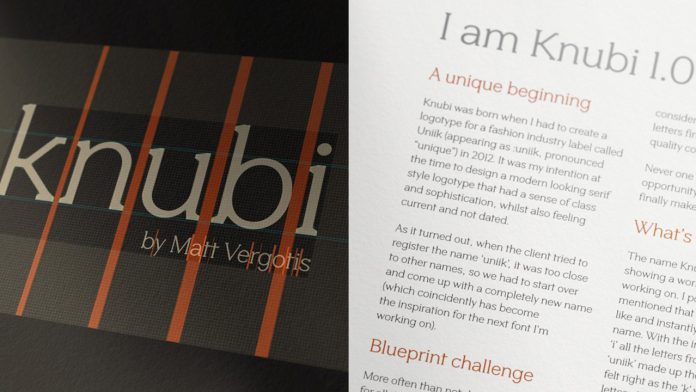
Being Matt Vergotis’ first released font, Knubi is a masterfully designed typeface based on elegant serifs combined with clear geometric shapes. Consisting of 380 glyphs that support 80 languages, the family is a great choice for editorial work. Please note, Knubi is available for free for personal use.
9. Buffalo, a playful script among our selection of the best free fonts for designers.
Designed by Jeremy Vessey, Buffalo is a nice hand-drawn script font that draws inspiration from vintage typography. The playful monoline script is a great choice for plenty of projects such as branding and promotional designs. The font is available for free download only at Pixel Surplus (free for personal and desktop commercial use).
8. Mosk font family, a modern sans-serif.
The Mosk font family was designed by Iulian Maftei. It consists of 9 weights ranging from Thin to Ultra. This functional font includes uppercase and lowercase letters as well as numerals. We recommend this typeface for modern graphic design projects, logos, headlines, editorial work, print, and web.
7. Paradizo, an elegant serif font that features regular & oblique styles.
Free for personal use, Paradizo is an elegant serif font that comes with many alternates and ligatures. The typeface is ideal for creating luxurious branding projects, websites, packaging, just to name a few. If you want to download Paradizo for commercial use, just have a look here. The free download link for personal use can be found below.
6. Roboto, a Google font with two characteristics.
Typeface designer Christian Robertson has developed Roboto based on two characteristics. On the one hand, the typeface is characterized by a geometrical design. On the other hand, Roboto offers a friendly and open look. Available for download at Google Fonts, it is equipped with a large range of styles including Thin, Light, Regular Medium, Bold, Black, and matching Italics. The family can be used for both print and screen design.
5. Salted Mocha, a natural hand-drawn brush script typeface.
Designed by Stephanie Arsenault using the Procreate app on the iPad, Salted Mocha proves that one can create amazing typefaces with a great variety of tools. The script font is characterized by naturally textured brushstrokes, which gives the typeface a playful and authentic touch. It is free for personal and desktop commercial use.
4. Margaret Serif Font, a classic typeface for a wide range of work.
The Margaret Serif font has been designed by Kacper Janusiak and K94 Studio with the aim to create a free serif with an elegant, high-quality appearance. This typeface performs well in plenty of applications including headlines, logos, and long text sections. It is free for both personal and commercial use.
3. Blackshore Font, a freely hand-painted typeface.
Blackshore is a bold, hand-painted sans serif font. This robust typeface is based on natural brushstrokes and intentional imperfections to offer the visual experience of truly handmade lettering. This versatile font can be used for many different designs including vintage badges, posters, website headers, and branding. Blackshore’s free version includes a sample of characters from the SVG version. The full version of Blackshore is equipped with both SVG & OTF formats and supports multiple languages. Please note, SVG font formats are compatible with Photoshop CC 2017 or Illustrator CC 2018 and higher. You can purchase the full version of Blackshore SVG + OTF for commercial use here. The free version is available for personal use. Just click on the following link.
2. Restora, an old-style roman serif font.
Restora is an old-style roman serif font family that is also available as a slimmed-down free version and a full-fledged paid version. The complete family comprises eight weights ranging from thin to black with matching italics. The free version includes Restora Extra Light and Restora Thin Italic. This versatile font family can be used in many different themes of design projects. You can purchase the full version of Restora with all 16 fonts here. If you are fine with the two-styles of the free version, then follow the link below.
Big John Pro, the best free font for graphic designers.
There it is, the number one of our selection of the best free fonts for graphic designers in 2021. Designed by Ion Lucin, Big John PRO is definitely one of our all-time favorite typefaces when we talk about free fonts. It’s the evolution of the Big John and Slim Joe font, which can be found here. Big John Pro is equipped with over 500 diacritics characters. It is available for free for personal and commercial use. Just click on the link in the bio of Ion Lucin’s Instagram account.